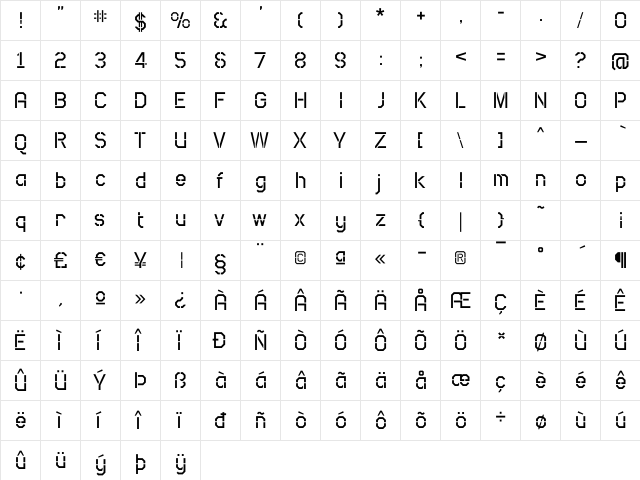
Camo SansRegular Regular
Design Context for Camo SansRegular Typeface
Camo SansRegular offers clean, dependable letterforms without strong stylistic allegiance, making it a practical choice for designers who need flexibility.